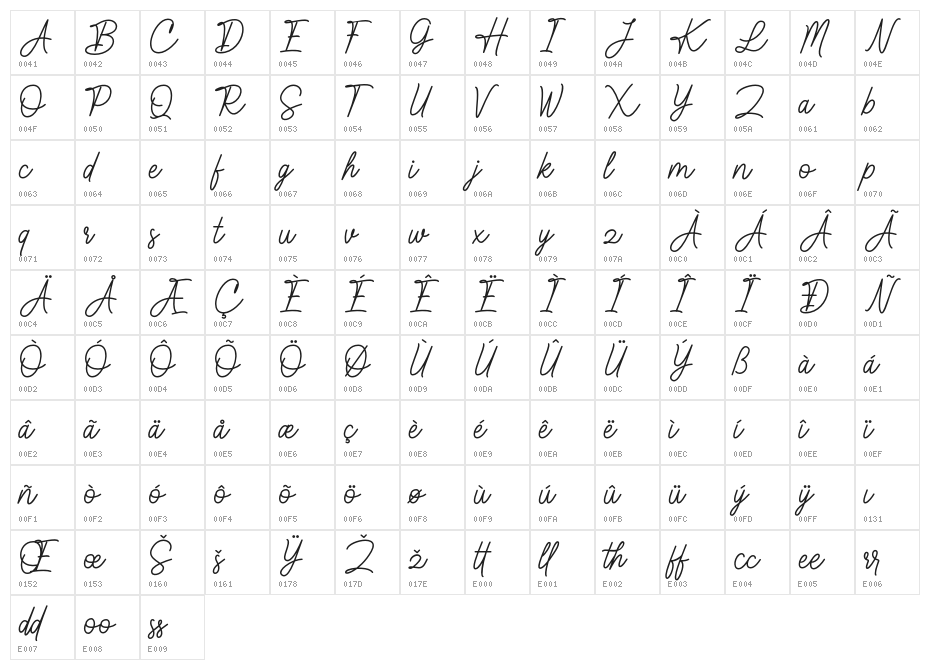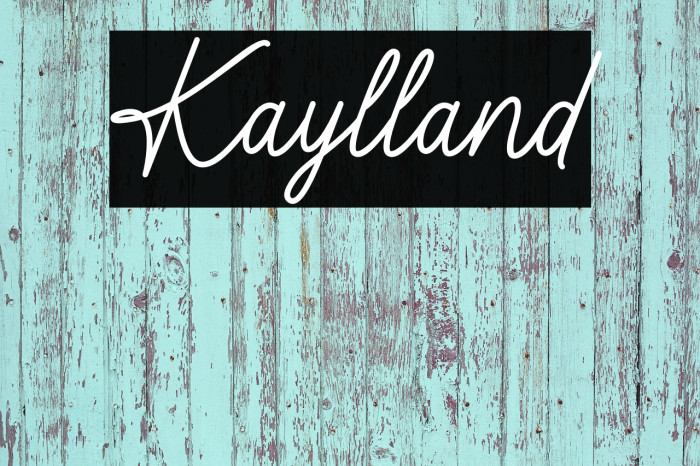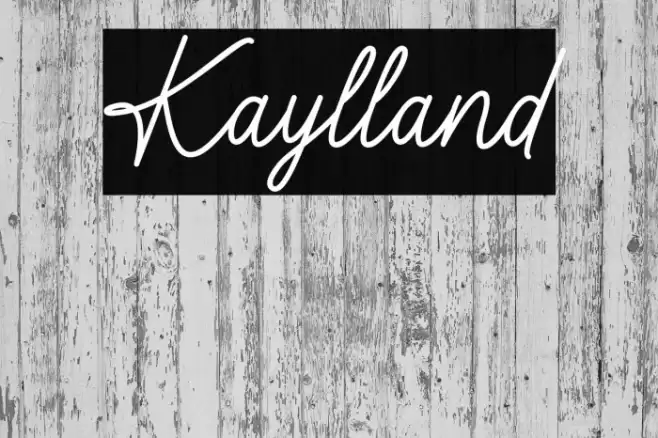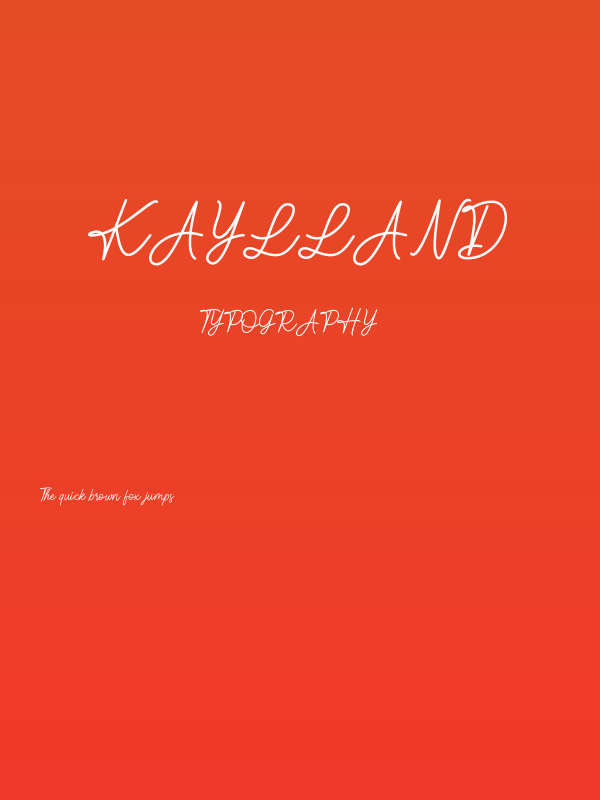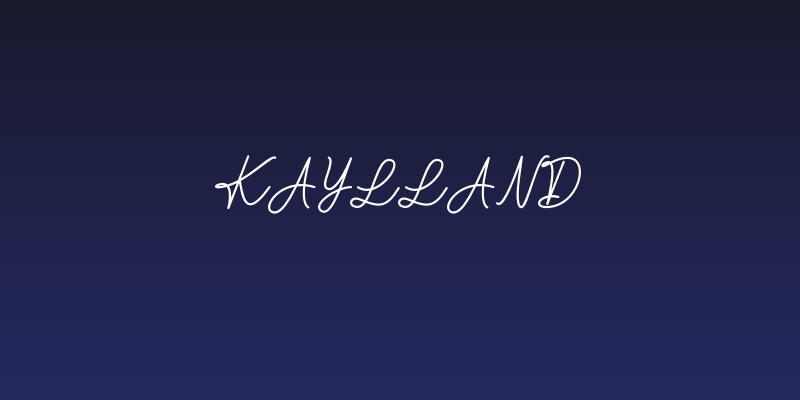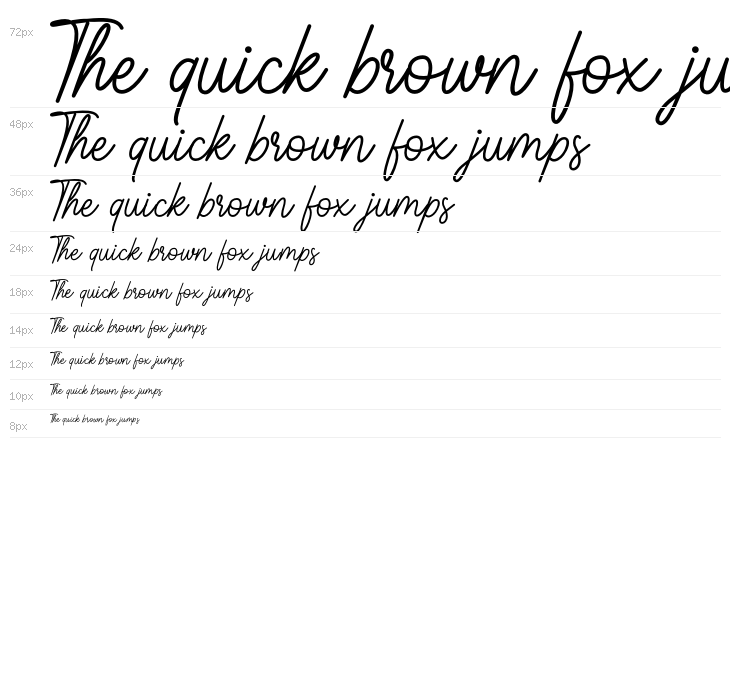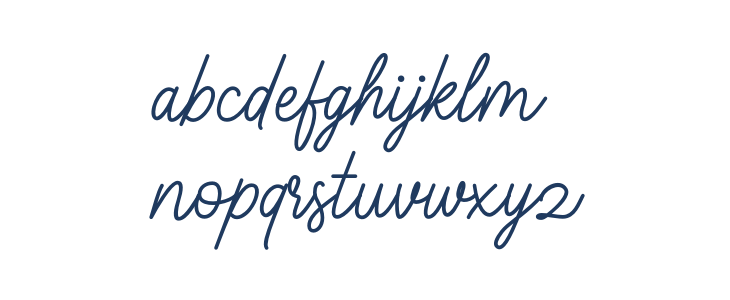
Kaylland Font
Kaylland Description
This font features an elegant, flowing script style that mimics natural handwriting. The uppercase letters are slightly larger and more ornate, with smooth curves and loops, while the lowercase letters maintain a consistent, connected flow. The overall appearance is sophisticated and stylish, making it suitable for formal invitations, branding, and decorative purposes. The characters exhibit a medium contrast in stroke thickness, adding to the legibility and aesthetic appeal. The font's design is both classic and modern, offering versatility for various creative projects.
| Overall Style | Classic, Modern |
| Proposed Projects | Ideal for wedding invitations, branding, greeting cards, and decorative designs. |